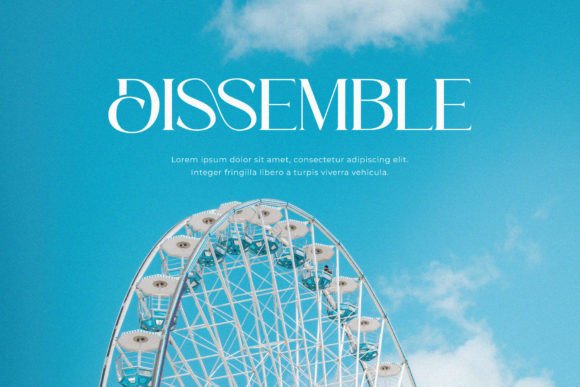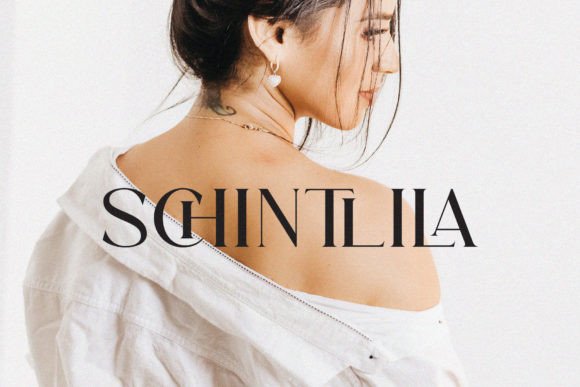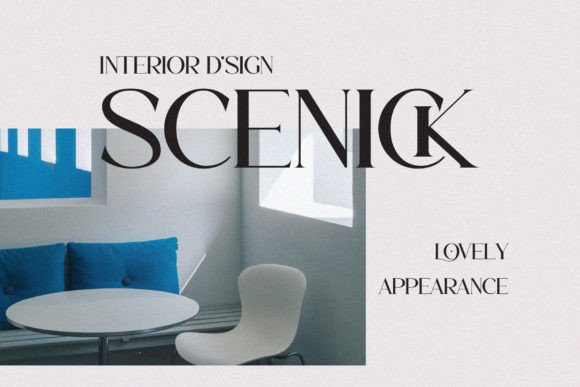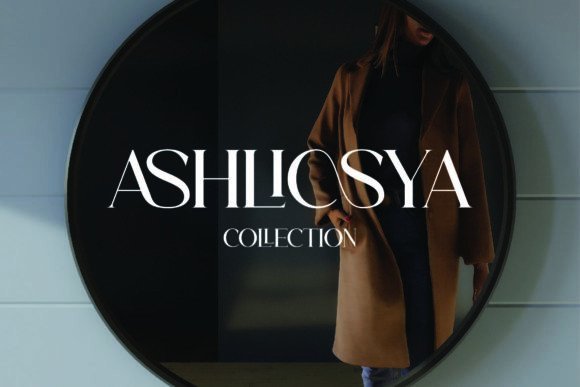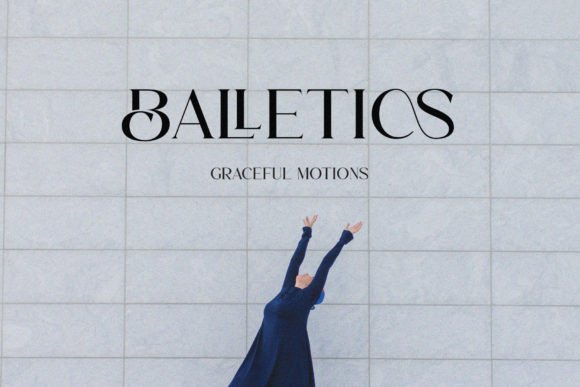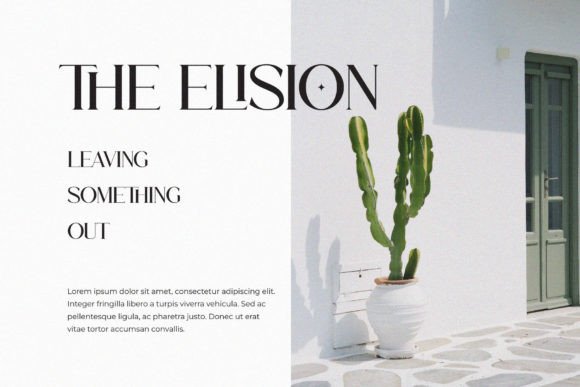
Introducing Delon Font: Elevate Your Designs with Elegance and Sophistication
In the world of typography, a well-crafted font can make all the difference in elevating your design to the next level. For designers and crafters seeking a typeface that exudes elegance and sophistication, look no further than Delon Font. Inspired by the famous minimalist logo, Delon is a serif typeface that embodies the perfect blend of refinement and versatility, making it an ideal choice for a wide range of design applications.
The Inspiration Behind Delon Font
Delon Font draws its inspiration from the iconic minimalist logo, which has become synonymous with modern design. The creators of Delon sought to capture the essence of this timeless logo and translate it into a fully-fledged typeface that would meet the needs of contemporary designers. The result is a font that is both classic and cutting-edge, perfect for those who appreciate the beauty of simplicity.
Key Features of Delon Font
So, what makes Delon Font stand out from the crowd? Here are some of its key features:
- Elegant Serif Design: Delon’s serif design adds a touch of sophistication to any project, making it perfect for high-end branding, advertising, and editorial design.
- Versatile and Adaptable: Whether you’re designing a template, brochure, video, or logo, Delon Font adapts seamlessly to any medium, ensuring your message is conveyed with clarity and style.
- Minimalist Aesthetic: True to its inspiration, Delon Font boasts a clean and minimalist aesthetic, making it an excellent choice for designers who value simplicity and elegance.
- High Legibility: Delon’s carefully crafted letterforms ensure high legibility, even at smaller font sizes, making it perfect for body text and captions.
Use Cases for Delon Font
Delon Font’s versatility makes it suitable for a wide range of design applications, including:
- Branding and Logos: Create a lasting impression with Delon’s elegant and sophisticated letterforms, perfect for logos, business cards, and brand guidelines.
- Advertising and Marketing: Elevate your advertising and marketing materials with Delon’s refined aesthetic, ideal for print and digital ads, brochures, and flyers.
- Editorial Design: Add a touch of elegance to your editorial designs, such as magazines, newspapers, and books, with Delon’s classic serif design.
- Video and Motion Graphics: Delon Font’s clean and minimalist design makes it an excellent choice for video and motion graphics, ensuring your message is conveyed with clarity and style.
Why Choose Delon Font?
With so many fonts available, why choose Delon Font for your next project? Here are just a few reasons:
- Unique and Distinctive: Delon Font offers a unique and distinctive look that will set your designs apart from the crowd.
- High-Quality Design: Delon Font is designed with precision and attention to detail, ensuring a high-quality finish that will elevate your designs.
In conclusion, Delon Font is an elegant serif typeface that offers a perfect blend of refinement, versatility, and sophistication. Inspired by the famous minimalist logo, Delon is ideal for designers and crafters seeking a high-quality font for a wide range of design applications. With its key features, versatility, and ease of use, Delon Font is an excellent choice for anyone looking to elevate their designs to the next level.
Whether you’re a seasoned designer or just starting out, Delon Font is a valuable addition to your typography arsenal. So why wait? Discover the power of Delon Font and take your designs to new heights of elegance and sophistication.